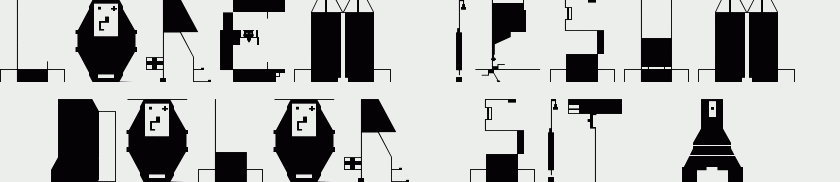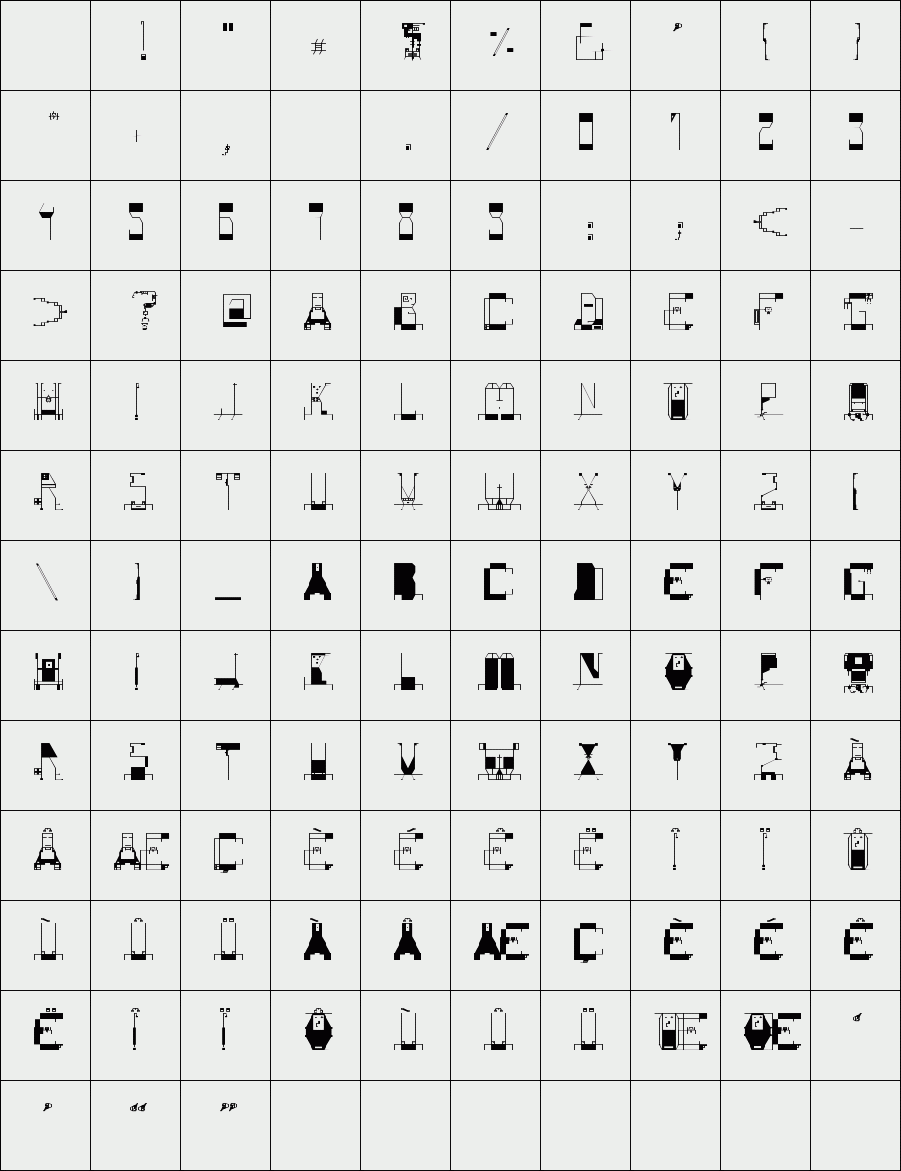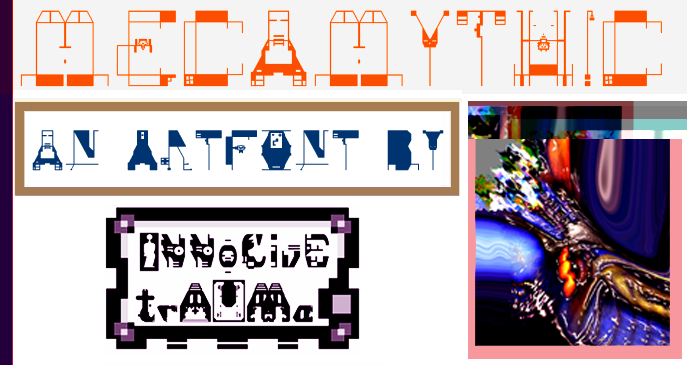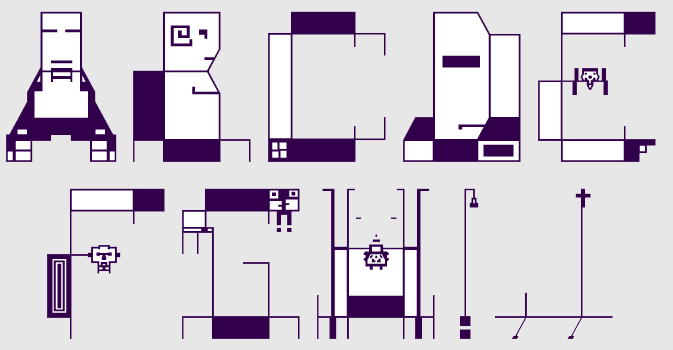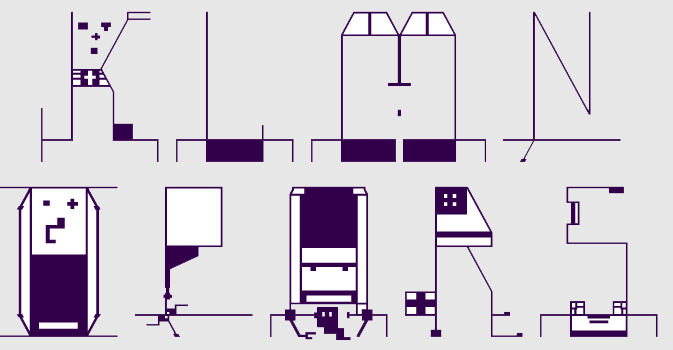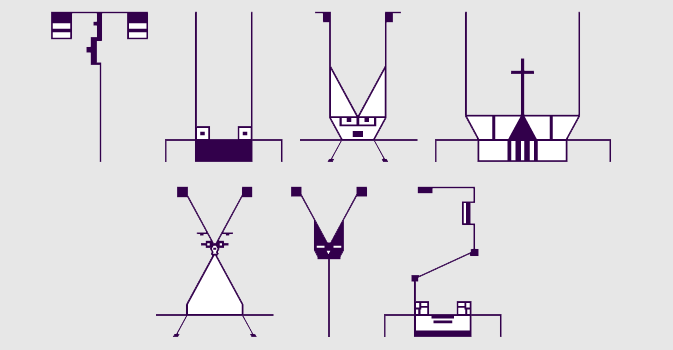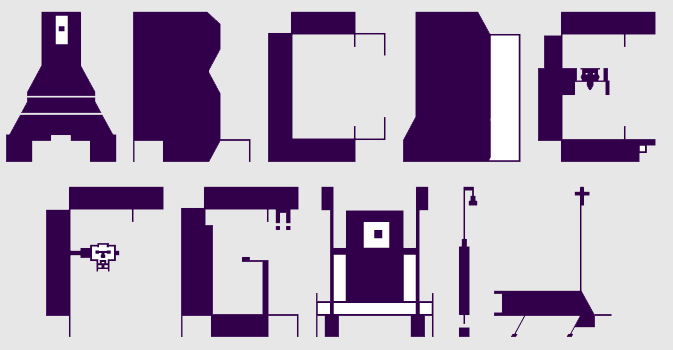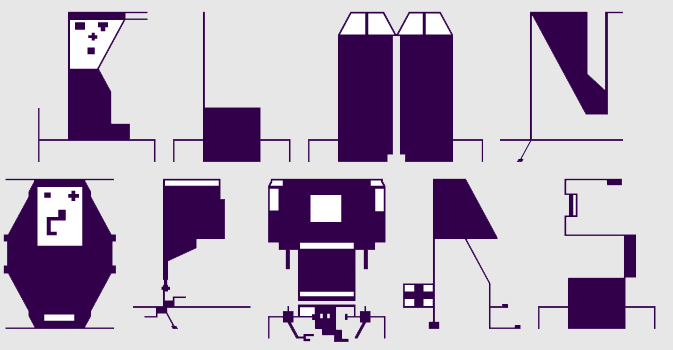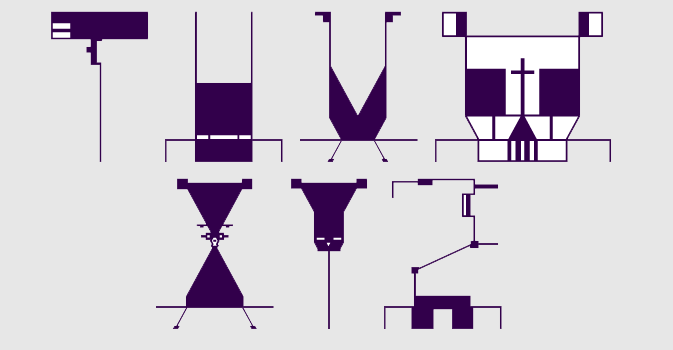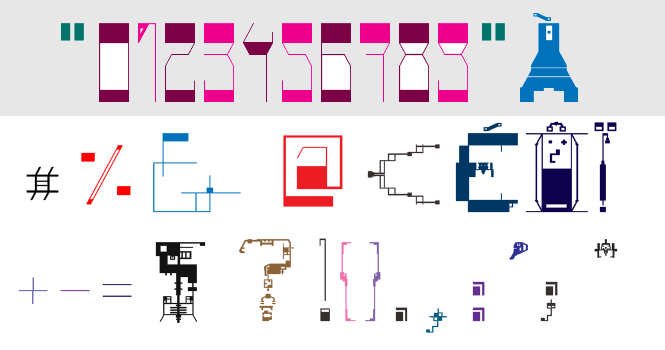
trAUMa 120 / Mecamythic
"Mecamythic", like all the "trAUMa" series, works at the frontier between Art & Type Design, Figuration & Abstraction, each font is a comprehensive world in which every glyph is a "living" entity. But put together they can produce your messages in the most accurate way.